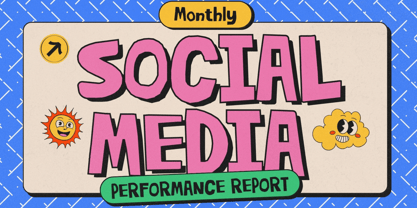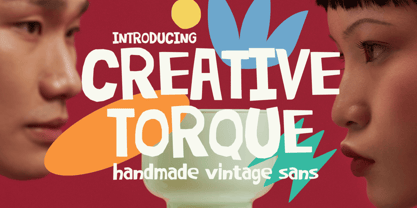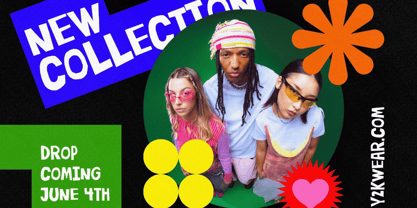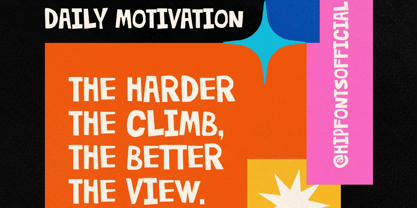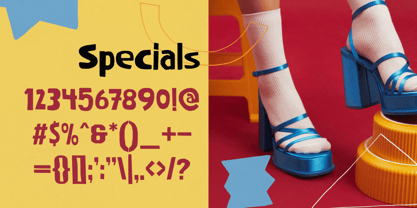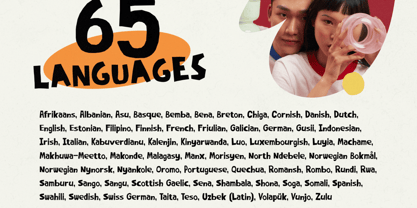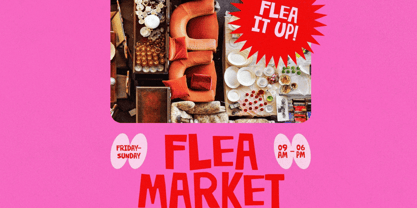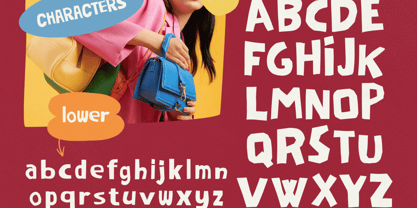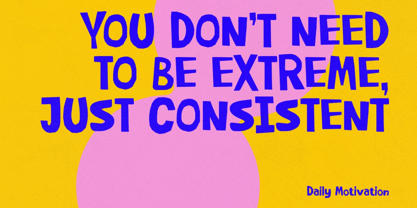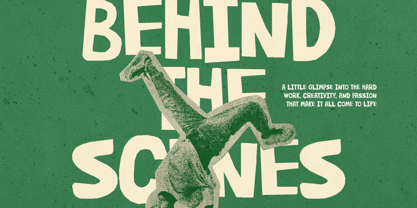
Creative Torque
Introducing Creative Torque, a handmade expressive sans serif font bursting with personality, creativity, and beautifully imperfect charm. Designed to feel raw, playful, and genuinely human, this typeface embraces organic inconsistencies, quirky letterforms, and handcrafted energy that instantly make designs feel more authentic and alive.
Creative Torque is not about sterile perfection—it’s about expression, movement, and character. Every letter carries its own unique rhythm and handcrafted touch, creating a whimsical visual style that feels fun, artistic, and full of personality while still remaining highly readable and versatile.
Perfect for flyers, bold headlines, posters, branding, packaging, social media graphics, album covers, children’s projects, apparel, editorial layouts, creative campaigns, and artistic design work, Creative Torque helps your projects stand out with warmth, originality, and expressive charm.
Playful. Imperfect. Wonderfully human.